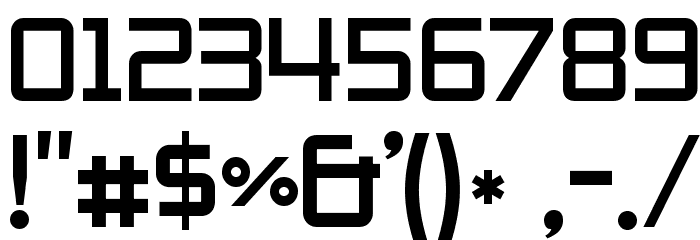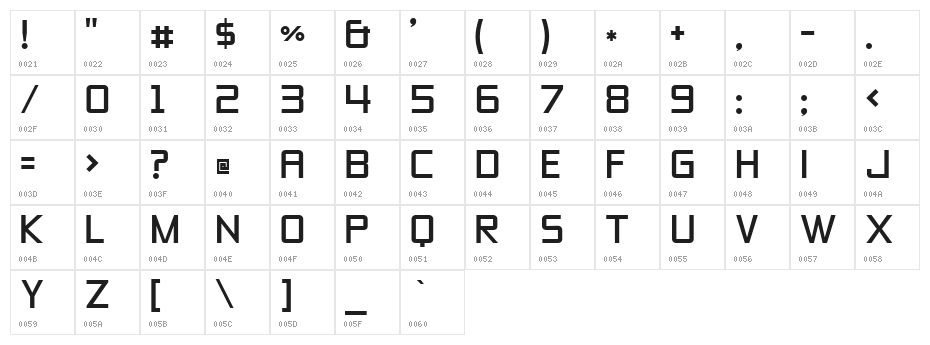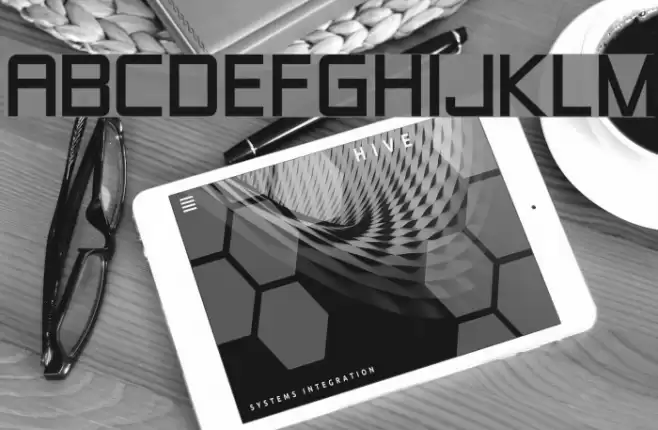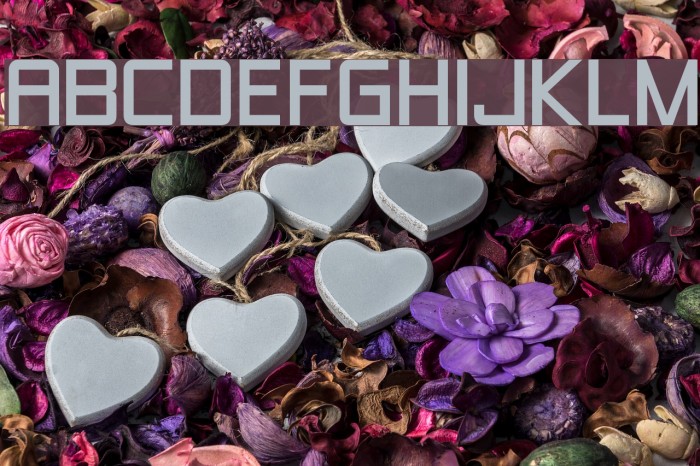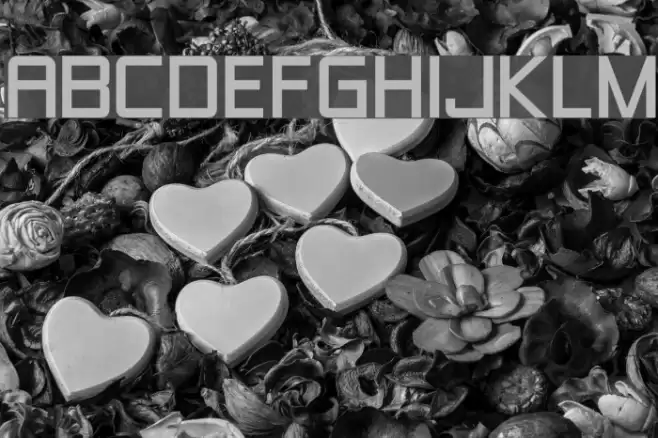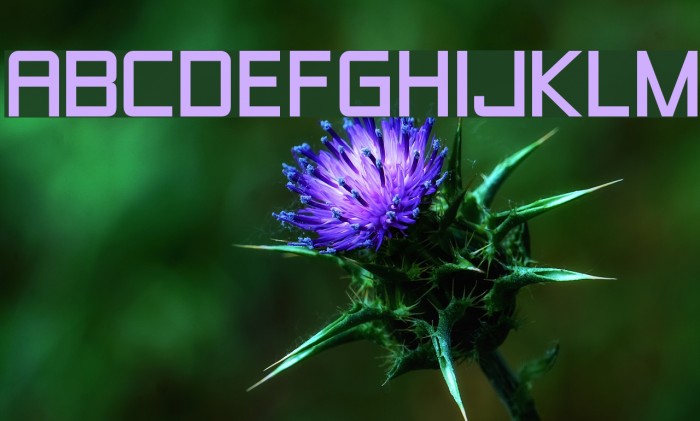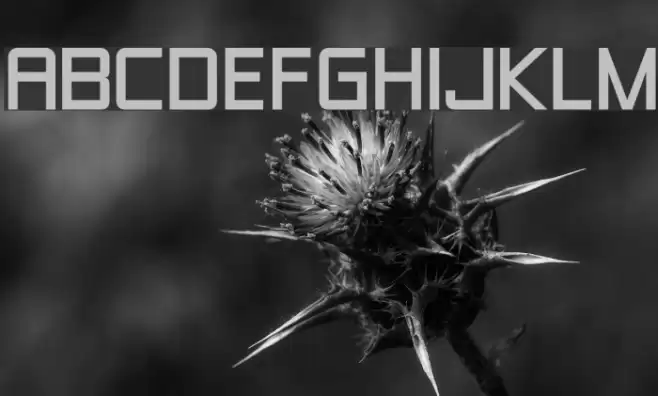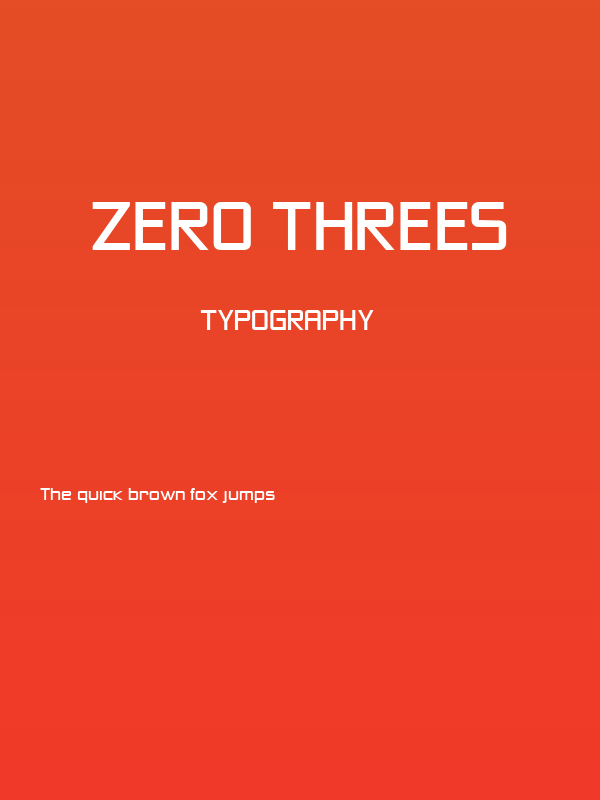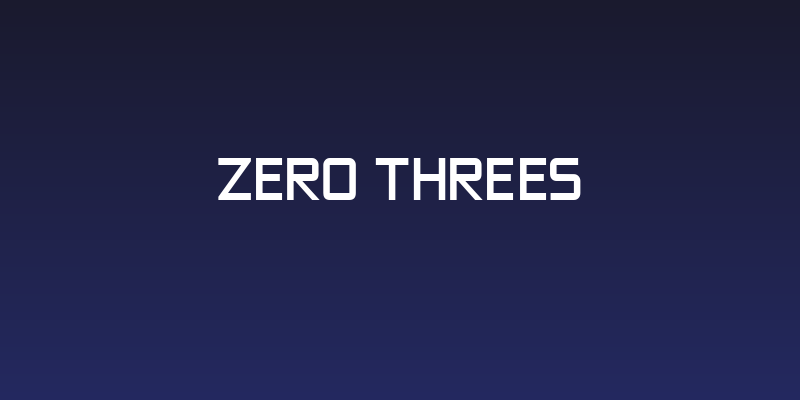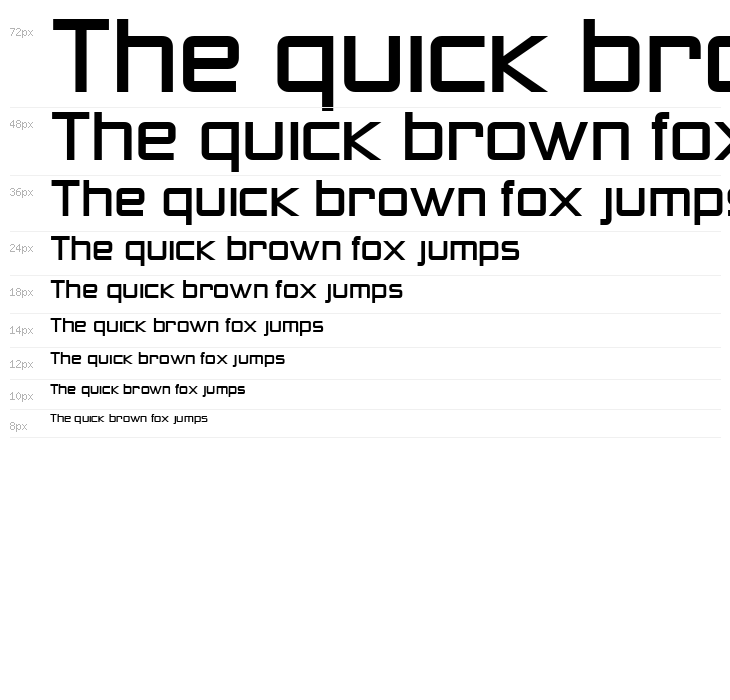
Zero Threes Font
Zero Threes Description
This font features a modern, geometric design with a strong emphasis on clean lines and sharp angles. The characters are uniformly structured, providing a sense of balance and precision. Uppercase and lowercase letters maintain a consistent height and width, contributing to a cohesive appearance. The numerals and special characters are designed to complement the alphabet, ensuring readability and aesthetic harmony. The overall look is sleek and contemporary, making it suitable for digital and print media.
| Proposed Projects | Ideal for tech branding, digital interfaces, modern advertising, and minimalist design projects. |